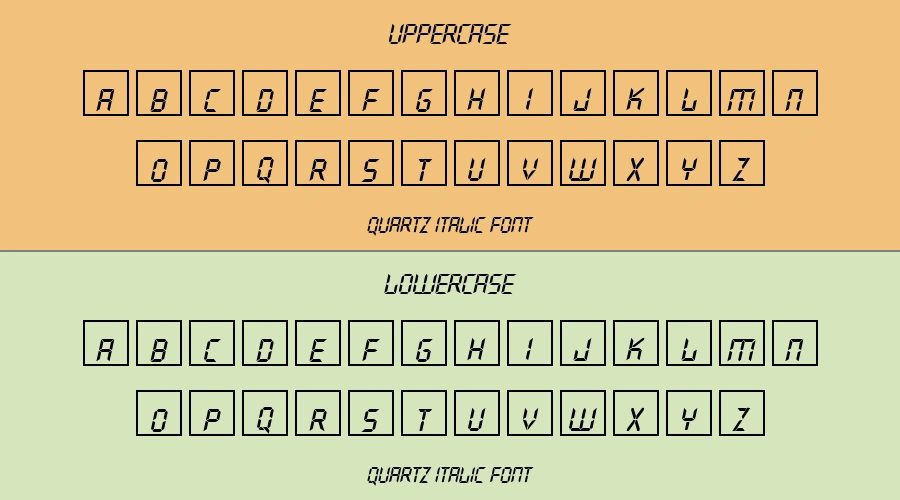
About Quartz Italic Font
Designed with precision, Quartz Italic Font merges assertive angles with functional clarity in every character. This versatility makes it particularly effective for ceremonial invitations, where consistency and sophistication directly impact communication quality. Each letterform demonstrates meticulous craftsmanship.
Technical excellence shines through elements like dramatic weight and decorative sets, enhancing typographic versatility. In warning labels settings, Quartz Italic Font proves its worth through superior data presentation. The thoughtful execution of tail length and scholarly tradition ensures professional results.